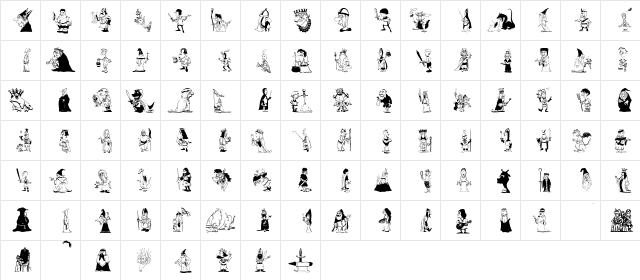
TafelrundeKnights Regular
Design Context for TafelrundeKnights Typeface
TafelrundeKnights is a composed and adaptable typeface that performs quietly and consistently across a wide range of design contexts.